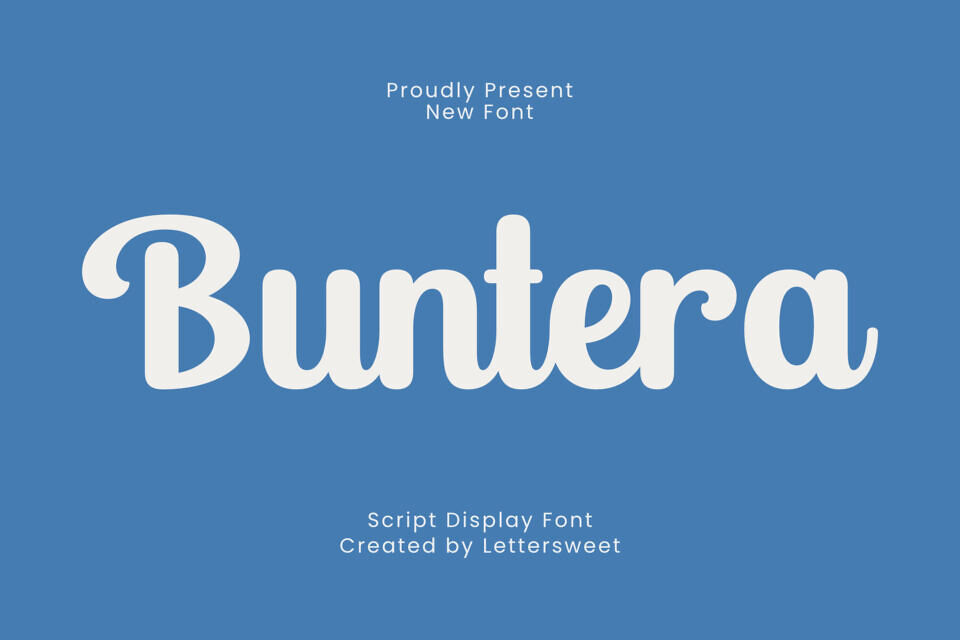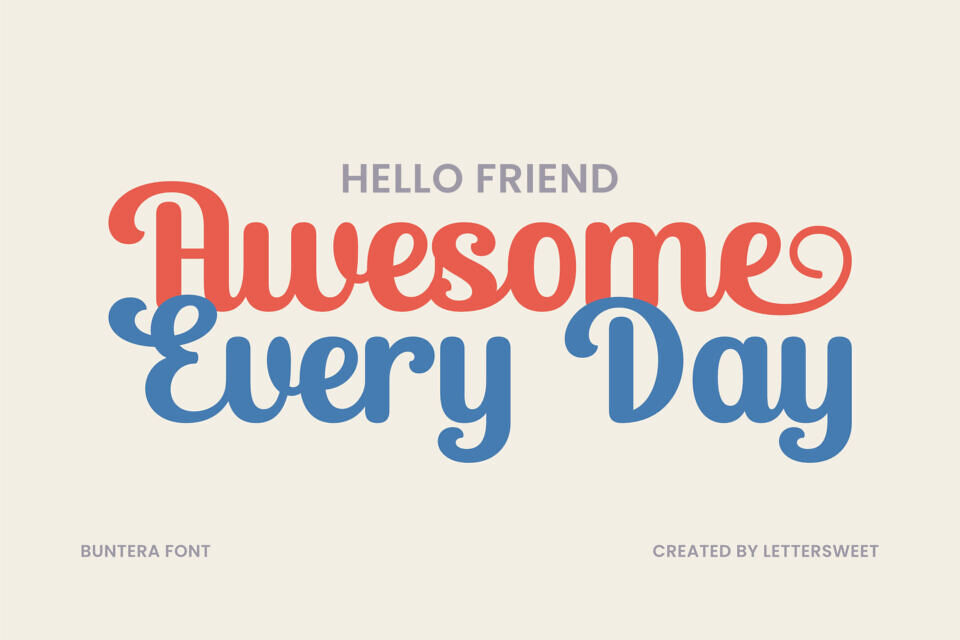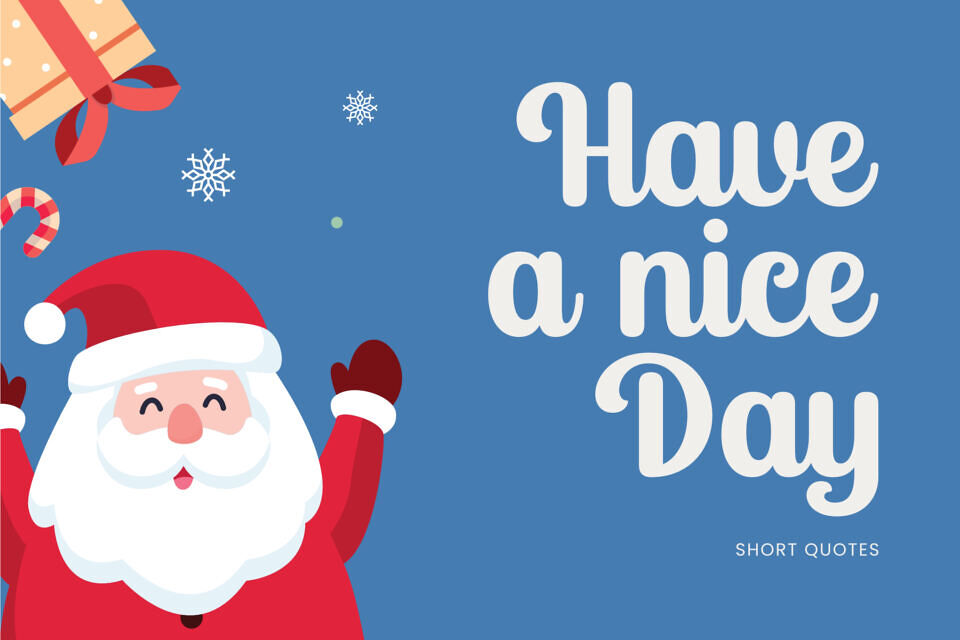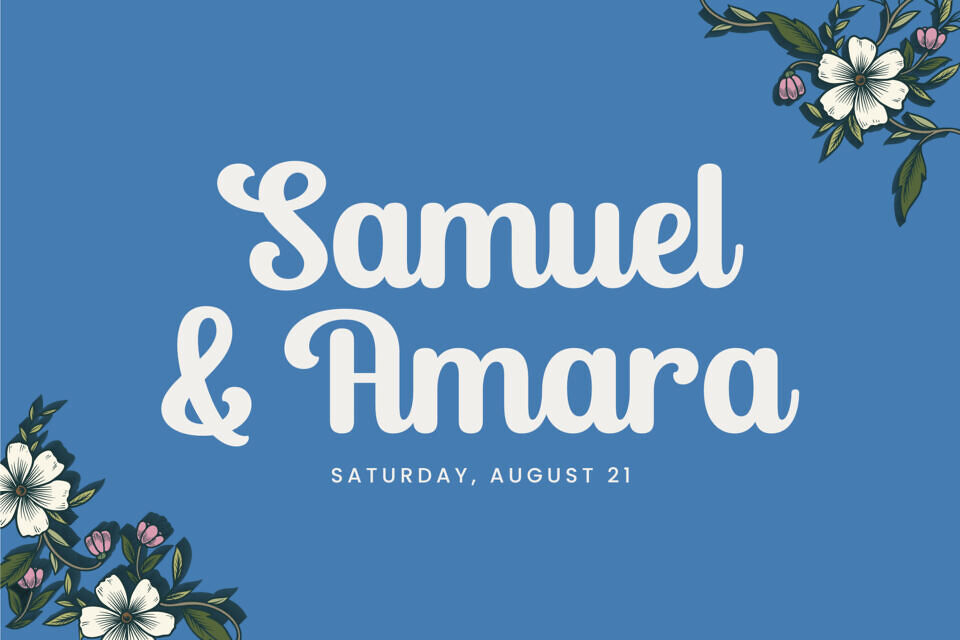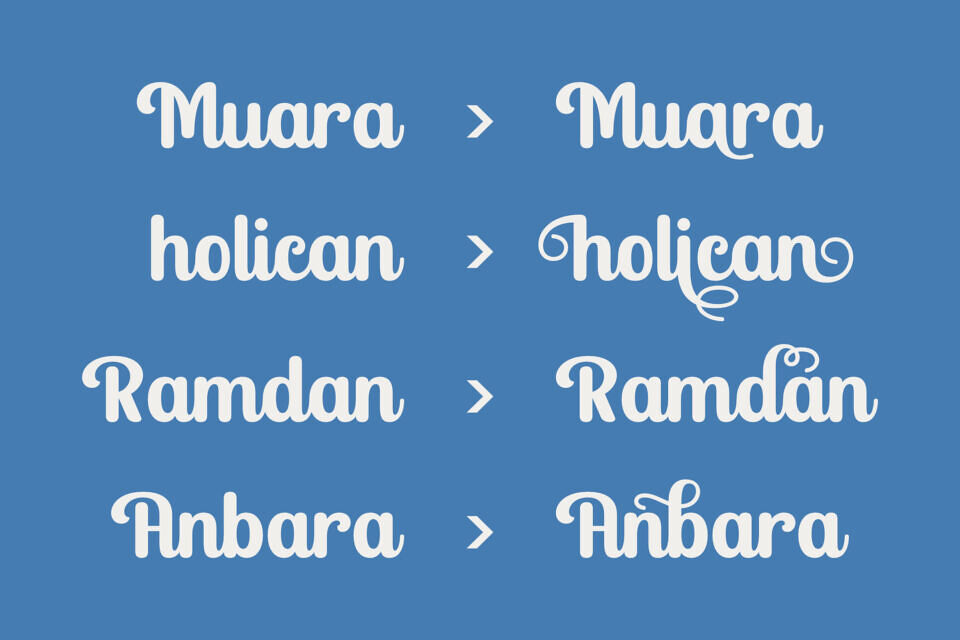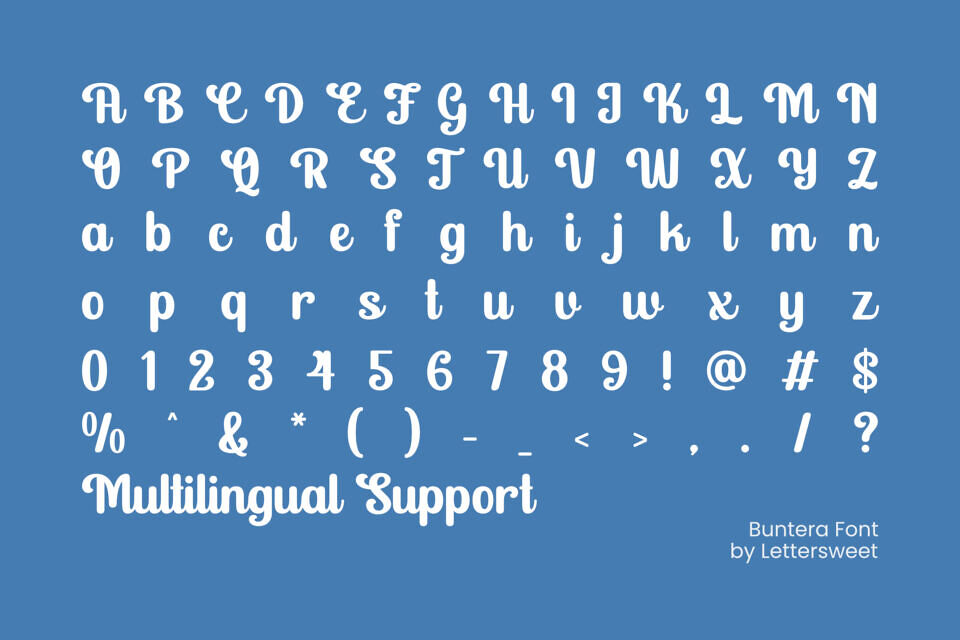
Buntera is a script display font with smooth, rounded curves and soft terminals—delivering a friendly, fun, and modern look. It’s perfect for logos, packaging, poster titles, product labels, bakery/café brands, invitations, skincare boxes, and Instagram/TikTok content. Its neat monoline strokes keep it readable at small sizes while staying eye-catching for headlines.